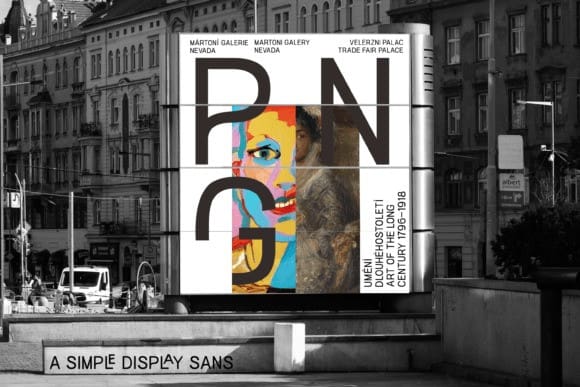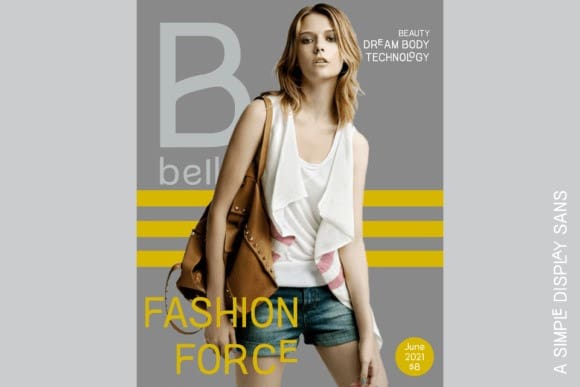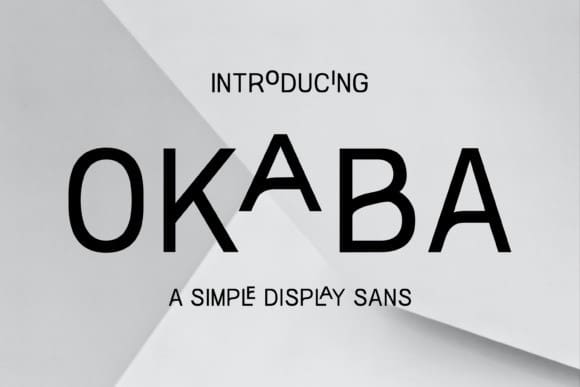
Okaba Font
Okaba Font a sans serif typeface full of personality and taste. A display typeface at its core, complete with several ligatures and alternatives for capital letters. With a clean, minimal, and modern sans typeface. Look elegant by using ligatures for your magazine, brochure and editorial layouts.